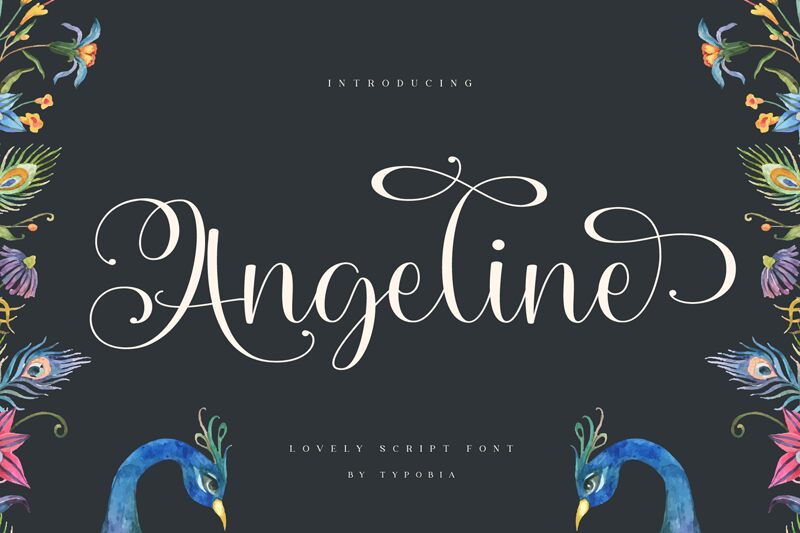
With its elegant and flowing calligraphy style, Angeline by Revo Farisky is the perfect font for any project that requires a touch of sophistication. The semi-light weight adds to its delicate charm, making it ideal for wedding invitations, greeting cards, and other formal documents. Its versatility also makes it suitable for branding materials such as logos and packaging designs. Whether you're looking to add a touch of refinement to your latest project or create a timeless piece of art, the Angeline font is sure to impress with its graceful curves and impeccable lettering.
Designed by Revo Farisky from Typobia in 2021